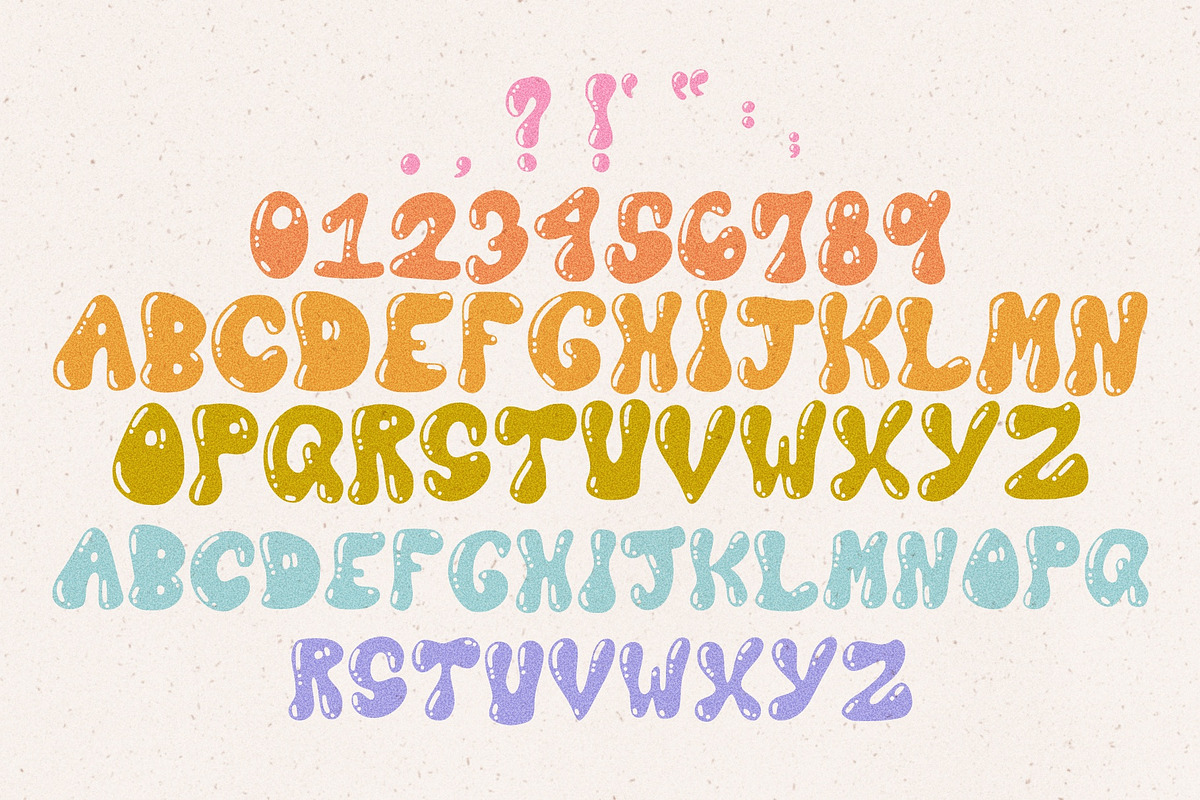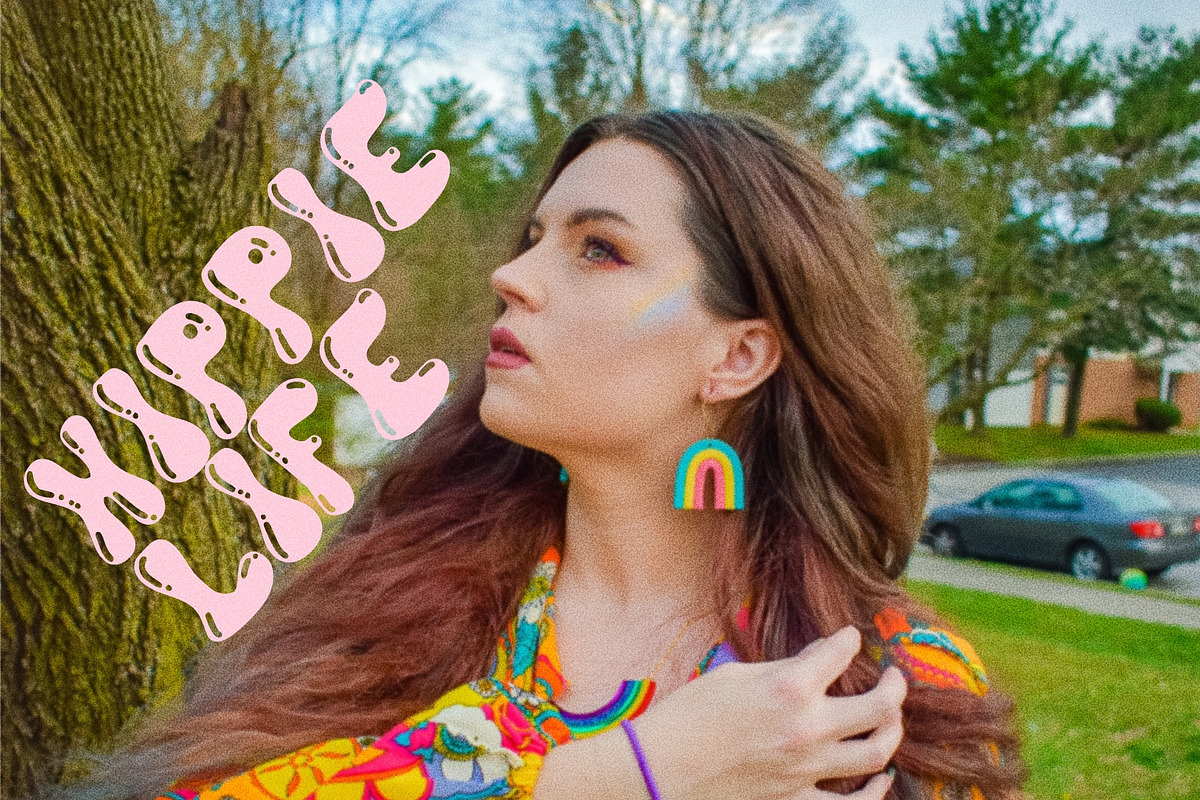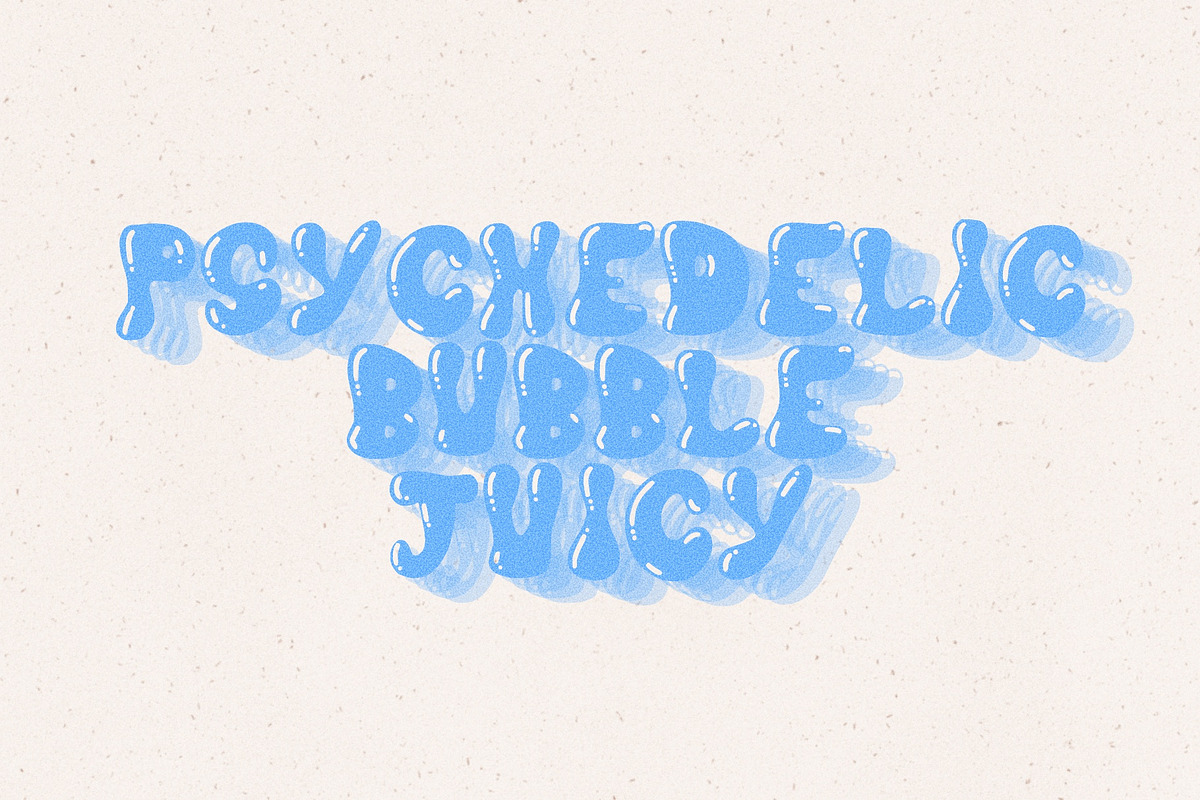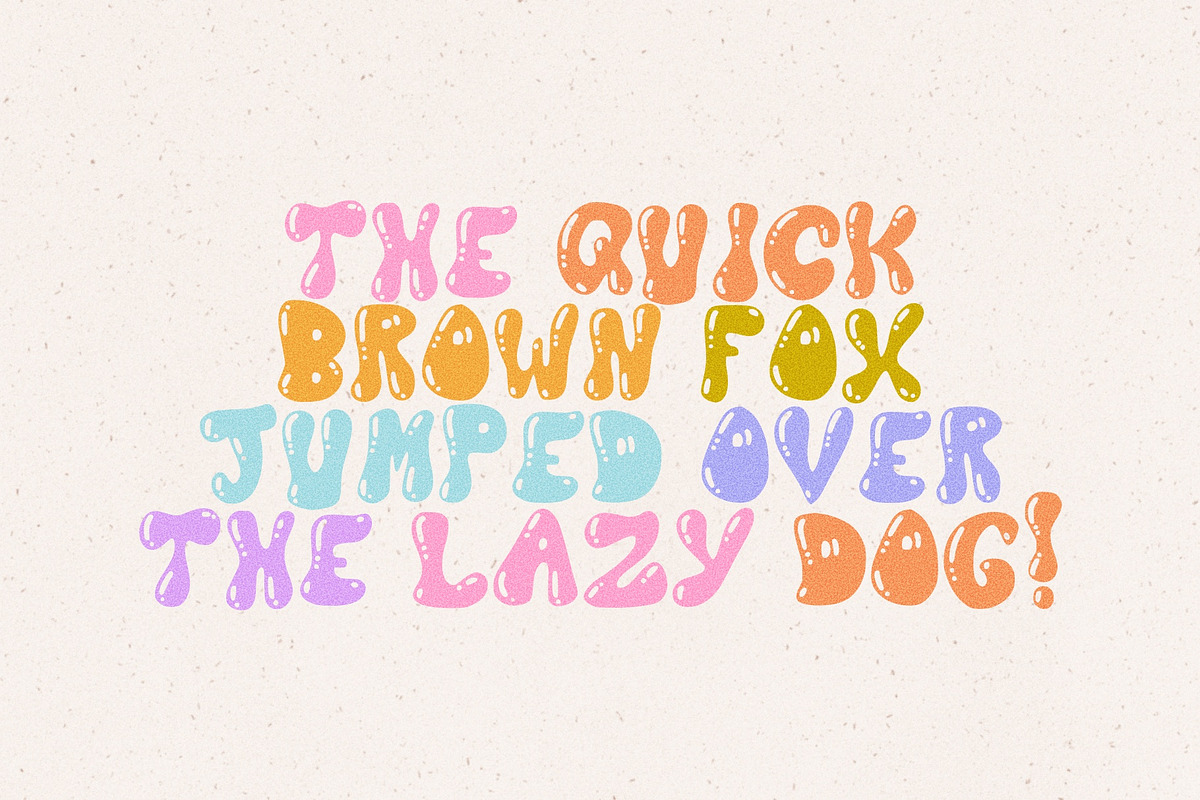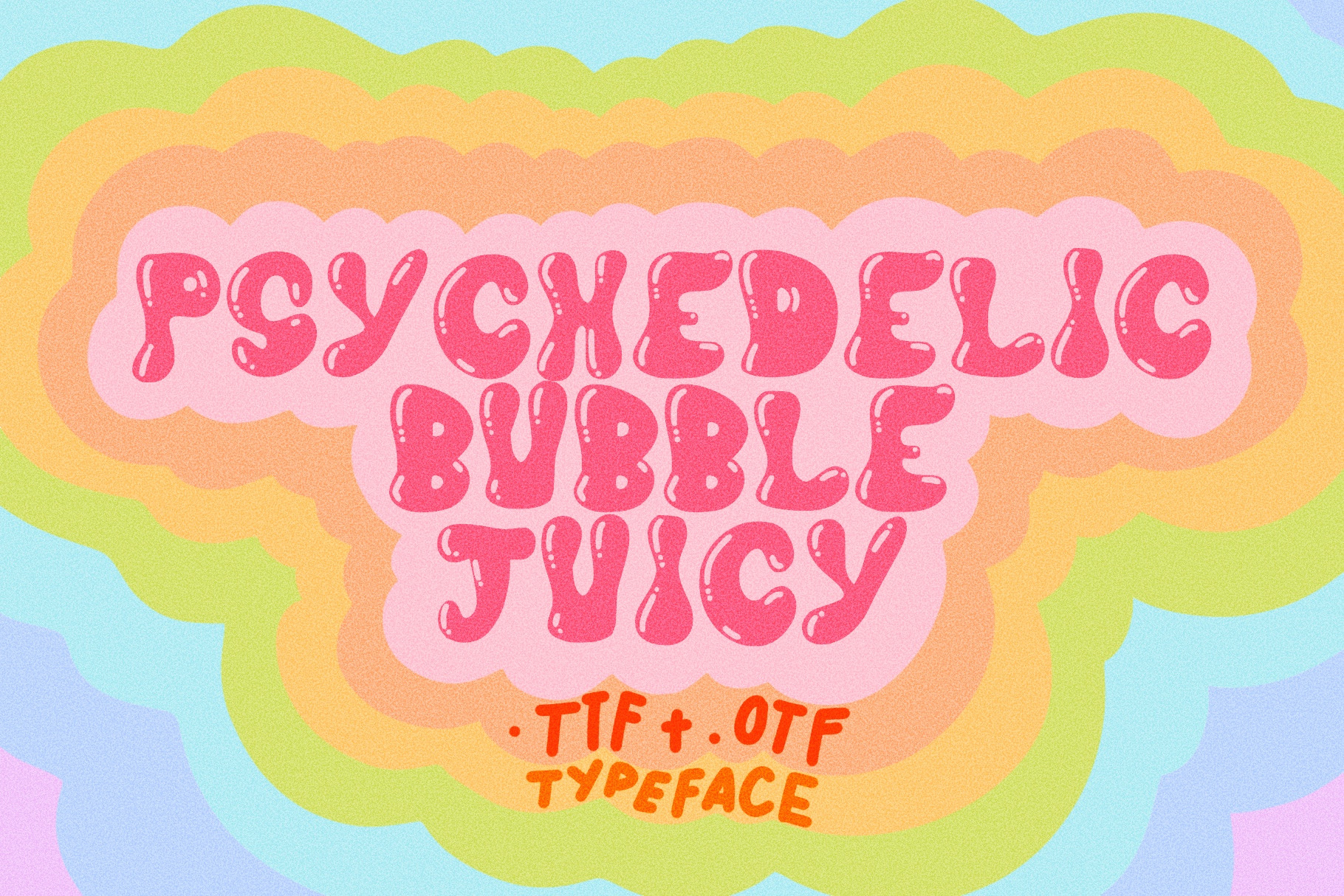
Psychedelic Bubble Juicy Font
The psychedelic bubble font! This is one of my favorite lettering styles, so I decided to make it into a font for you all to enjoy! I love that 1970s bubble letter style, and think it really ties together your piece to give it that vintage feel. This font has 70 characters, uppercase and lower case caps, numbers and punctuation. This purchase comes with the OTF and TTF, so you can have both in case you need it!